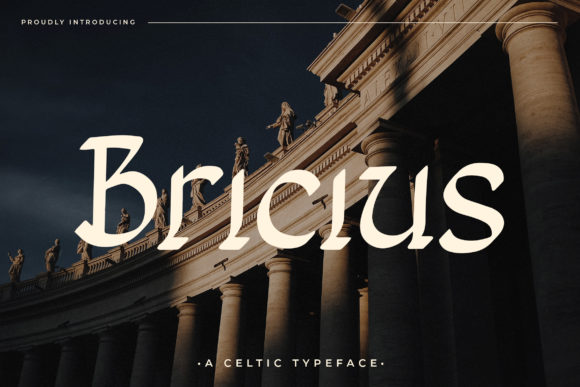
Bricius Font: A Unique and Whimsical Display Font
In the world of typography, a good font can make all the difference in the success of a design project. Whether you’re a seasoned designer or a crafty DIY enthusiast, having access to a versatile and eye-catching font can elevate your creations to new heights. That’s where Bricius Font comes in – a unique and whimsical display font that’s sure to become an incredibly valuable asset to your font library.
What Makes Bricius Font So Special?
Bricius Font is a one-of-a-kind display font that boasts a distinctive and playful style. Its unique charm lies in its ability to add a touch of personality to any design project, making it perfect for a wide range of applications, from branding and advertising to packaging and digital media. Whether you’re looking to create a bold statement or add a dash of whimsy to your design, Bricius Font is the perfect choice.
Key Features of Bricius Font
- Unique and Whimsical Design: Bricius Font features a distinctive and playful design that’s sure to turn heads.
- Versatile and Adaptable: This font is perfect for a wide range of design projects, from branding and advertising to packaging and digital media.
- Easily Readable: Despite its whimsical design, Bricius Font is surprisingly easy to read, making it perfect for use in both digital and print applications.
- Highly Customizable: With its comprehensive character set and range of diacritical marks, Bricius Font can be easily customized to suit your design needs.
How to Use Bricius Font in Your Design Projects
Bricius Font is incredibly easy to use and can be incorporated into your design projects in a variety of ways. Here are a few ideas to get you started:
- Branding and Logo Design: Use Bricius Font to create a bold and eye-catching logo that’s sure to make your brand stand out.
- Social Media Graphics: Add a touch of personality to your social media graphics with Bricius Font, perfect for creating engaging and shareable content.
- Packaging Design: Use Bricius Font to add a dash of whimsy to your packaging design, making your products stand out on store shelves.
- Digital Media: Incorporate Bricius Font into your digital media projects, such as video titles, blog posts, and more.
Tips for Getting the Most Out of Bricius Font
To get the most out of Bricius Font, here are a few tips to keep in mind:
- Pair with Other Fonts: Bricius Font pairs perfectly with other fonts, so don’t be afraid to get creative and try out different combinations.
- Use in Combination with Images: Bricius Font looks great when used in combination with images, so try incorporating it into your design projects for a unique and eye-catching effect.
In conclusion, Bricius Font is a unique and whimsical display font that’s sure to become an incredibly valuable asset to your font library. With its distinctive design, versatility, and ease of use, Bricius Font is perfect for a wide range of design projects. Whether you’re a seasoned designer or a crafty DIY enthusiast, Bricius Font is sure to elevate your creations to new heights.